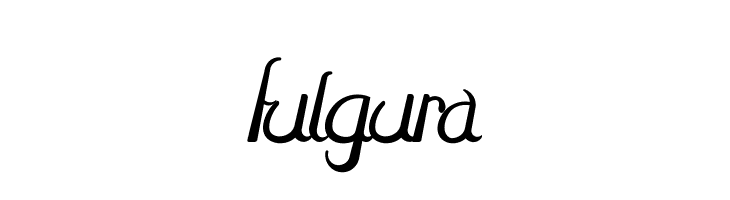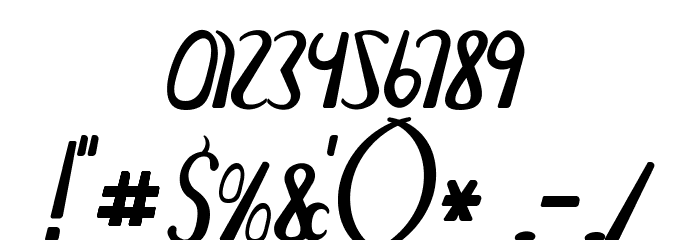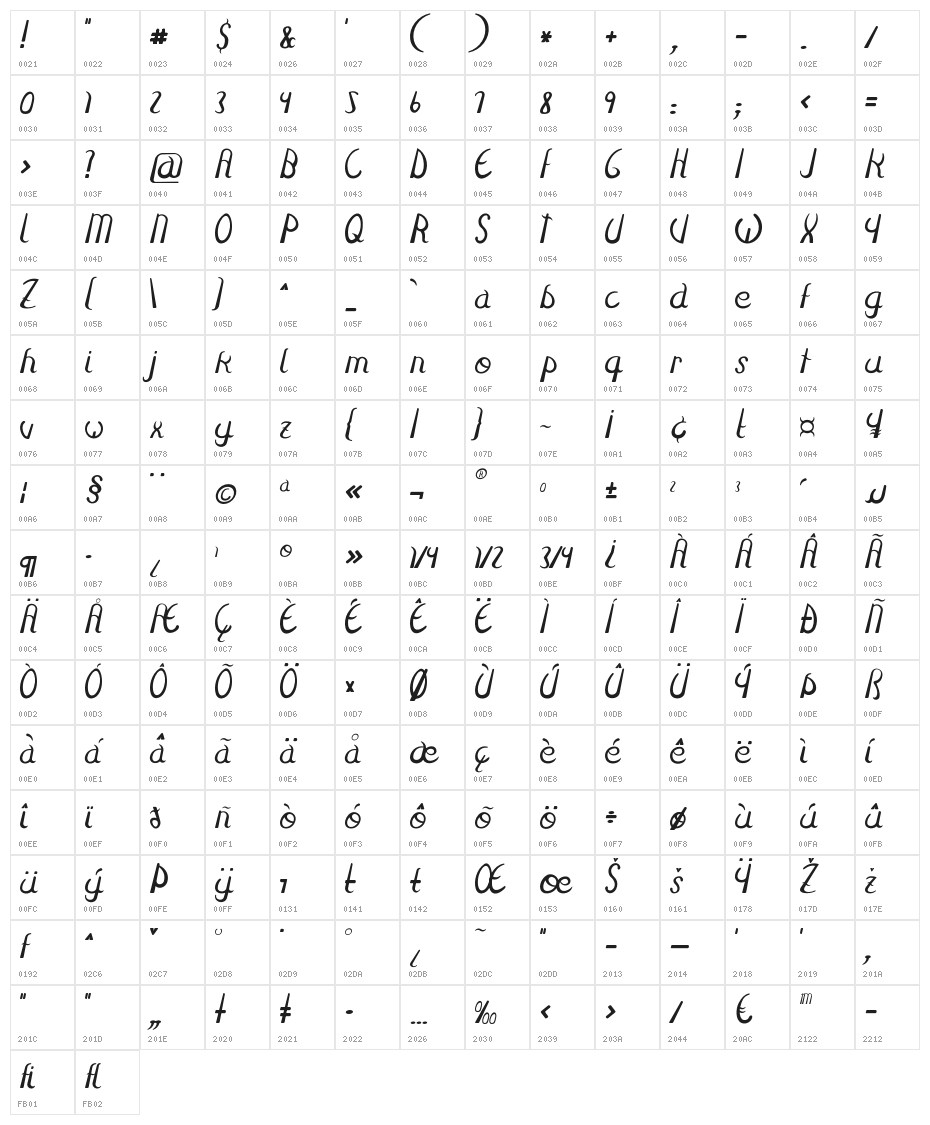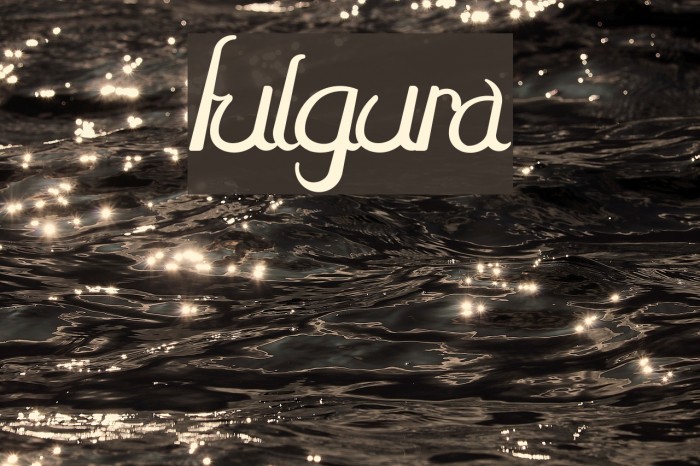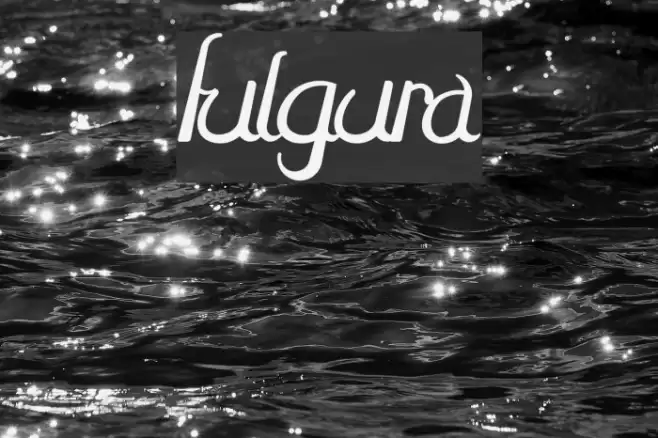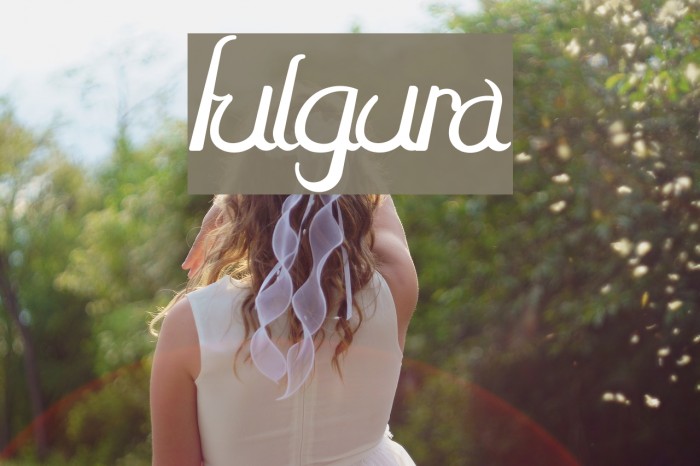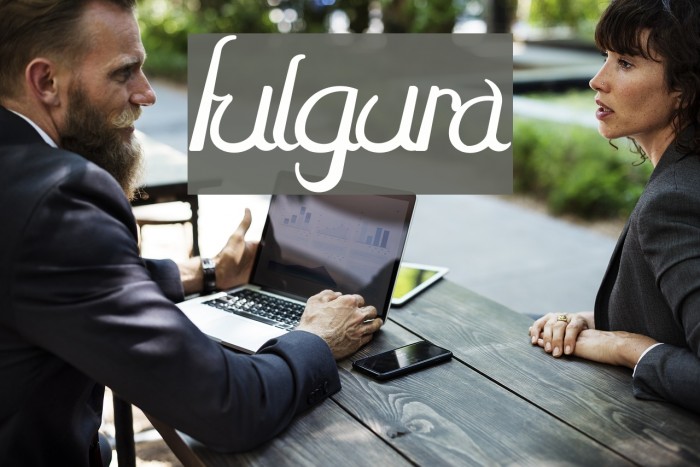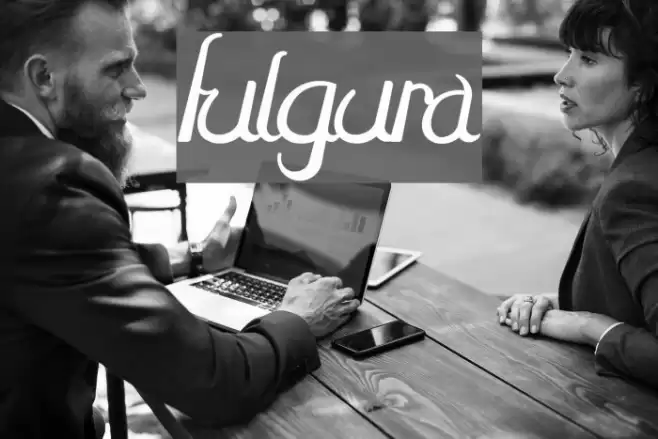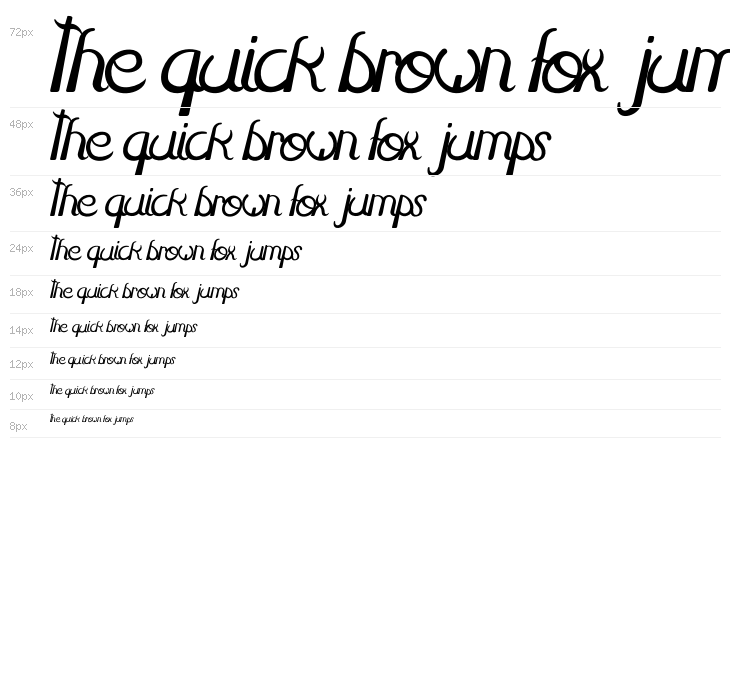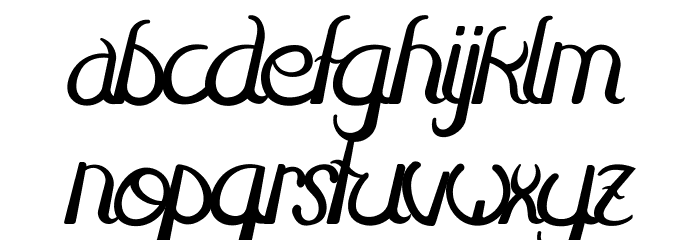
Fulgura Font
Fulgura Description
This font features a unique and dynamic style with a distinct slant, giving it a sense of motion and energy. The characters are elongated with a slight curve, creating a flowing and elegant appearance. The uppercase letters are bold and prominent, while the lowercase letters maintain a consistent style with a slightly softer touch. The numbers are designed to match the overall aesthetic, providing a cohesive look. Special characters are creatively integrated, adding to the font's versatility. The overall design is modern and stylish, making it suitable for various creative applications.